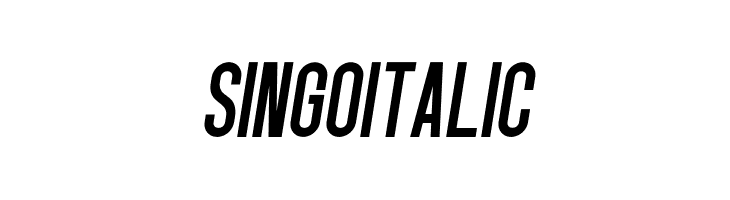
A playful, hand-drawn font with bold, irregular strokes and a whimsical style.
A fluid, cursive font with elegant, connected strokes and a modern yet classic appeal.
A bold, sans-serif font with strong, thick strokes and a modern aesthetic.
A playful, handwritten font with tall, narrow letters and rounded edges.
A decorative font with intricate line work and a hand-drawn appearance.
A bold, hand-drawn font with a single-stroke, expressive style.
A bold, brush-stroke font with a dynamic and aggressive style.
A Gothic-inspired font with sharp serifs and high contrast, ideal for dramatic and elegant designs.
An abstract, single-line font with geometric and angular characters.
A bold, textured font with a hand-painted, distressed appearance.